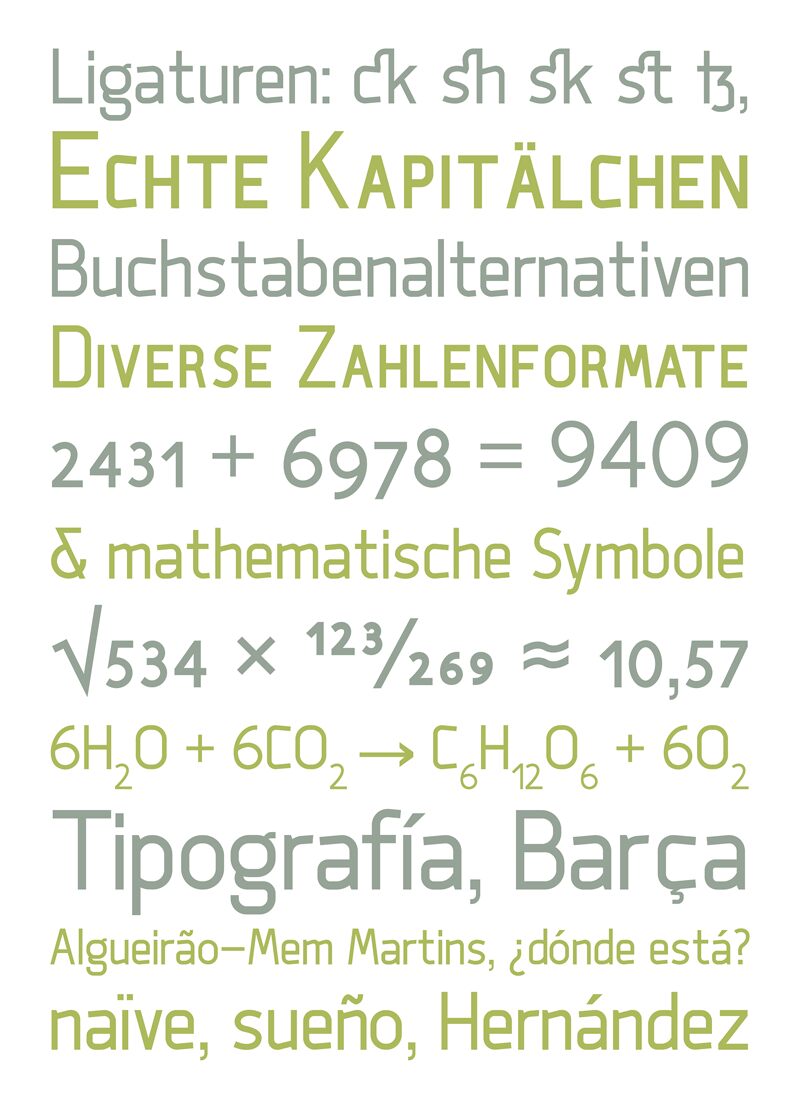
Neiga by Christian Pannicke is a free high-contrast sans serif with tall, lean proportions and a distinctly fashion-minded edge. Its broad curves meet unusually fine uprights, and the changing stroke widths give the letters an elegant but slightly unconventional silhouette.
Fashion branding is its strongest setting, especially for wordmarks and campaign graphics that favor spare, elongated lettering. It can also lend a refined editorial note to magazine covers, perfume packaging, and event posters. Across those uses, the narrow forms and dramatic weight shifts connect the type to contemporary style imagery rather than everyday text.